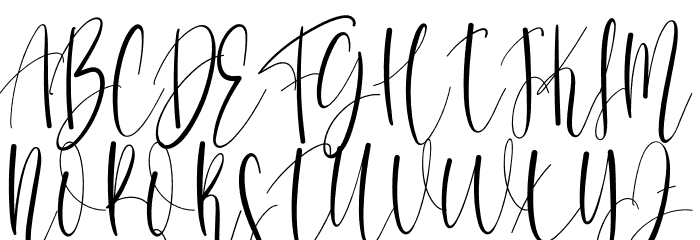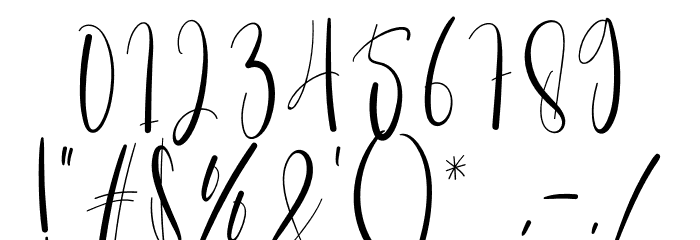
Tough Girl Font
This font exhibits a lively and dynamic script style, characterized by its flowing, cursive letterforms. The strokes are varied in thickness, creating a sense of movement and elegance. The uppercase letters are tall and slender, with exaggerated loops and swashes that add a decorative flair. The lowercase letters maintain a consistent rhythm, with smooth connections and a slightly informal appearance. Numbers and special characters follow the same stylistic cues, ensuring a cohesive look. The overall impression is one of sophistication and playfulness, making it suitable for creative and expressive design projects.
A lively and dynamic script font with flowing, cursive letterforms and decorative swashes.
- Proposed Projects: Ideal for wedding invitations, greeting cards, branding, and any project that requires a touch of elegance and personality.
- Category: Script
- Italic: Yes
- Overall Style: Decorative
- Use Case: Logos, Invitations, Greeting Cards